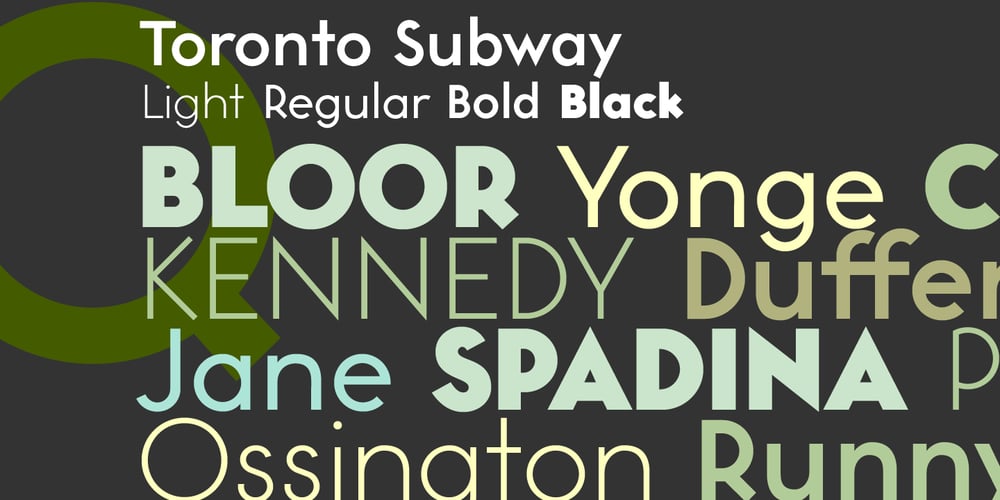
Toronto Subway Font Family was designed by David Vereschagin and published by Quadrat. Toronto Subway contains 4 styles and family package options. Toronto Subway is based on the lettering originally used for station identification and signs by the Toronto Transit Commission (TTC) in the Toronto, Canada, subway system. The first subway line opened in 1954. However, the original lettering remains unique. The lettering on the original signage consists only of uppercase characters and a few bits of punctuation in two weights: Regular and Bold, introduced in 2004. The Toronto Subway fonts were developed from rubbings of the lettering etched into station walls and photographs of painted signs. The overall style of the lettering is very mechanical, almost naive, yet still having a certain amount of elegance. This style was followed as much as possible in creating the extra lowercase, punctuation and other special characters. The Toronto Subway family was expanded in 2014 with the addition of the Light and Black weights.